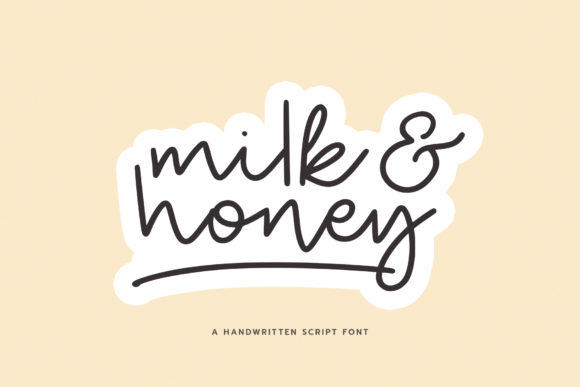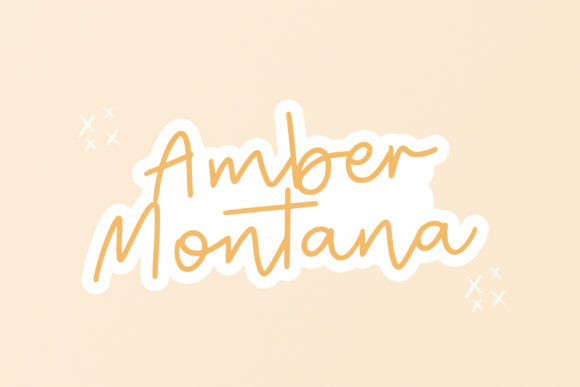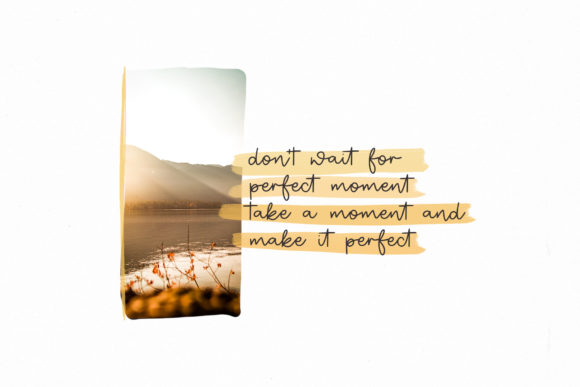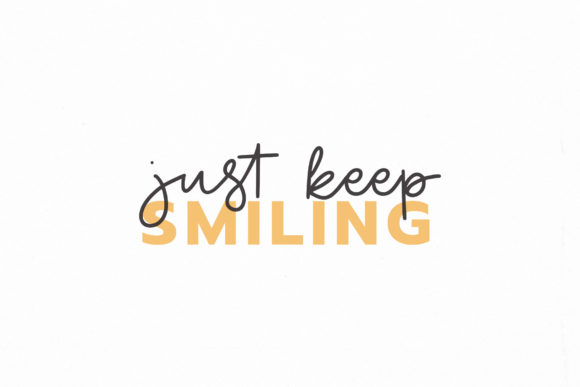
Milk and Honey Font
About Milk and Honey Font
Milk and Honey is a sweet and friendly handwritten font. Fall in love with its incredibly versatile style and use it to create gorgeous wedding invitations, beautiful stationary art, eye-catching social media posts, and much more!